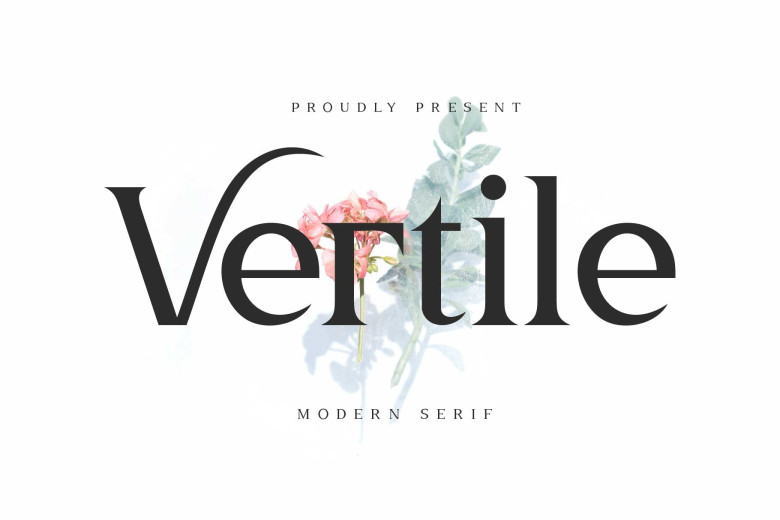
Vertile Font
Vertile is an elegant yet bold serif font characterized by gentle curves – making it the ideal choice for editorial and fashion designs. Include it in your designs to see the stunning results!
Vertile Serif Font